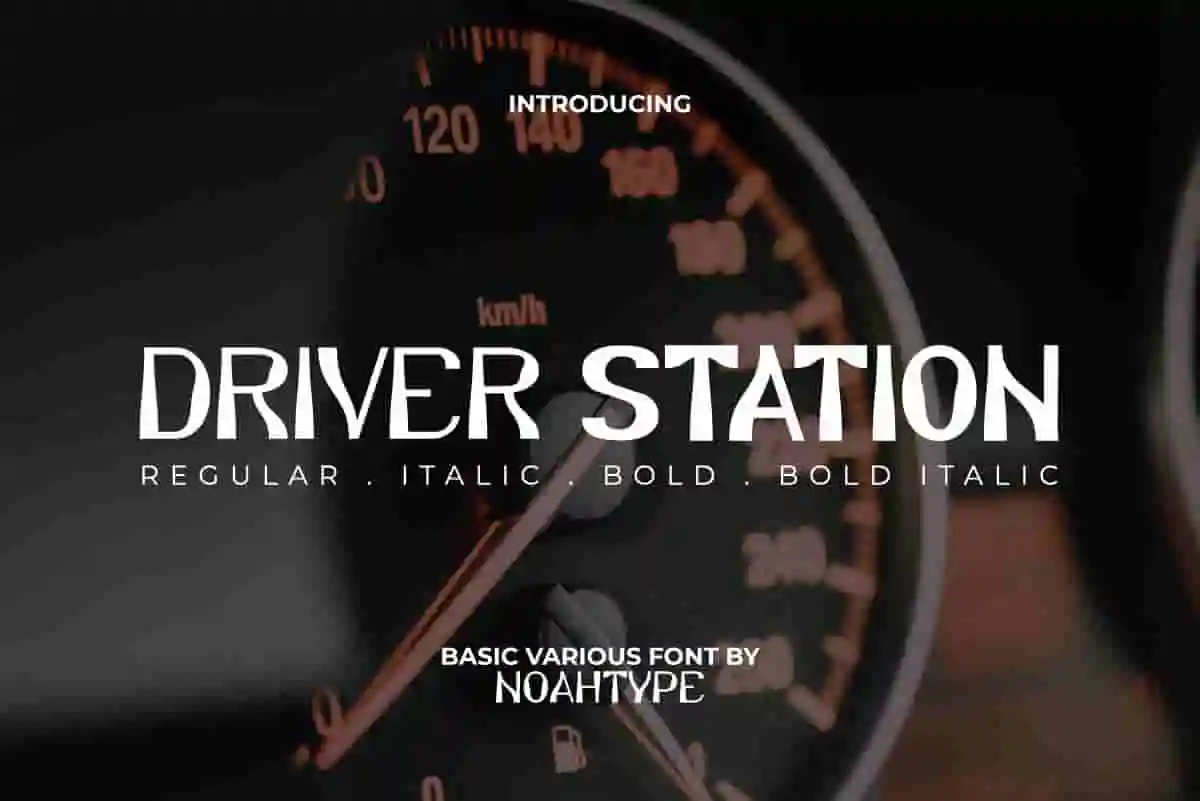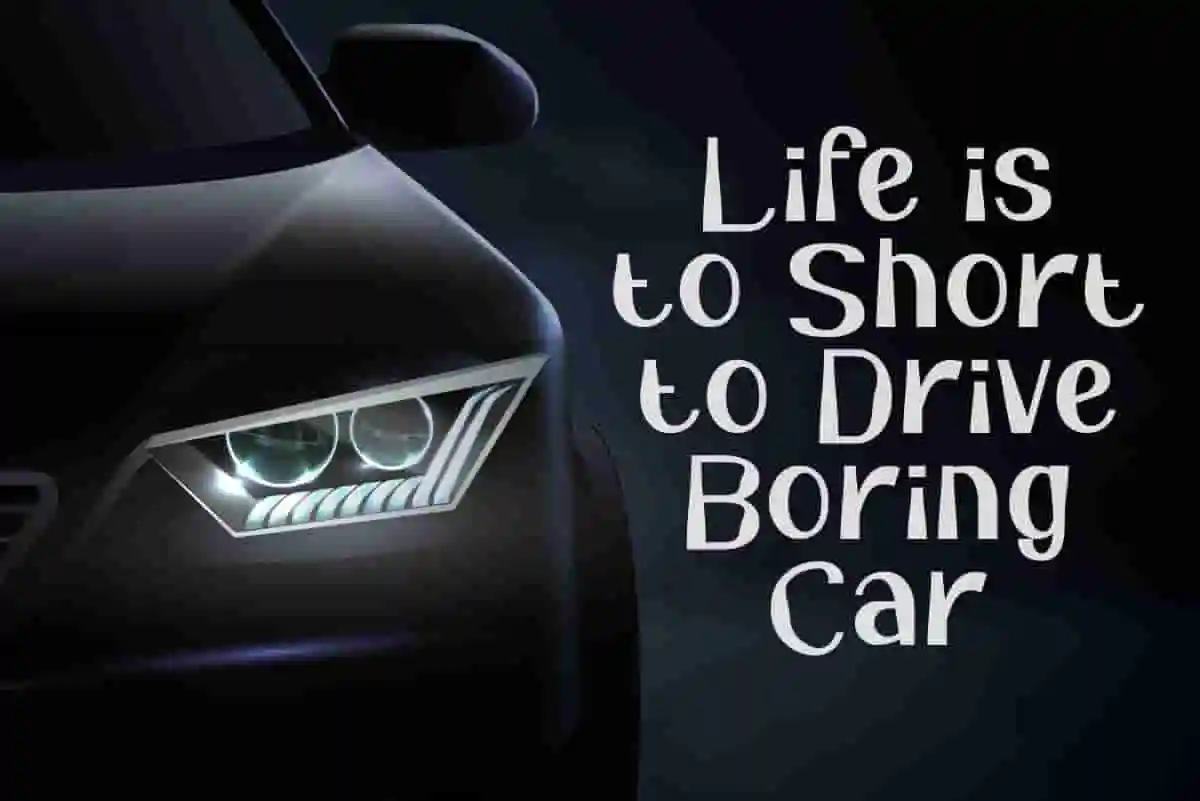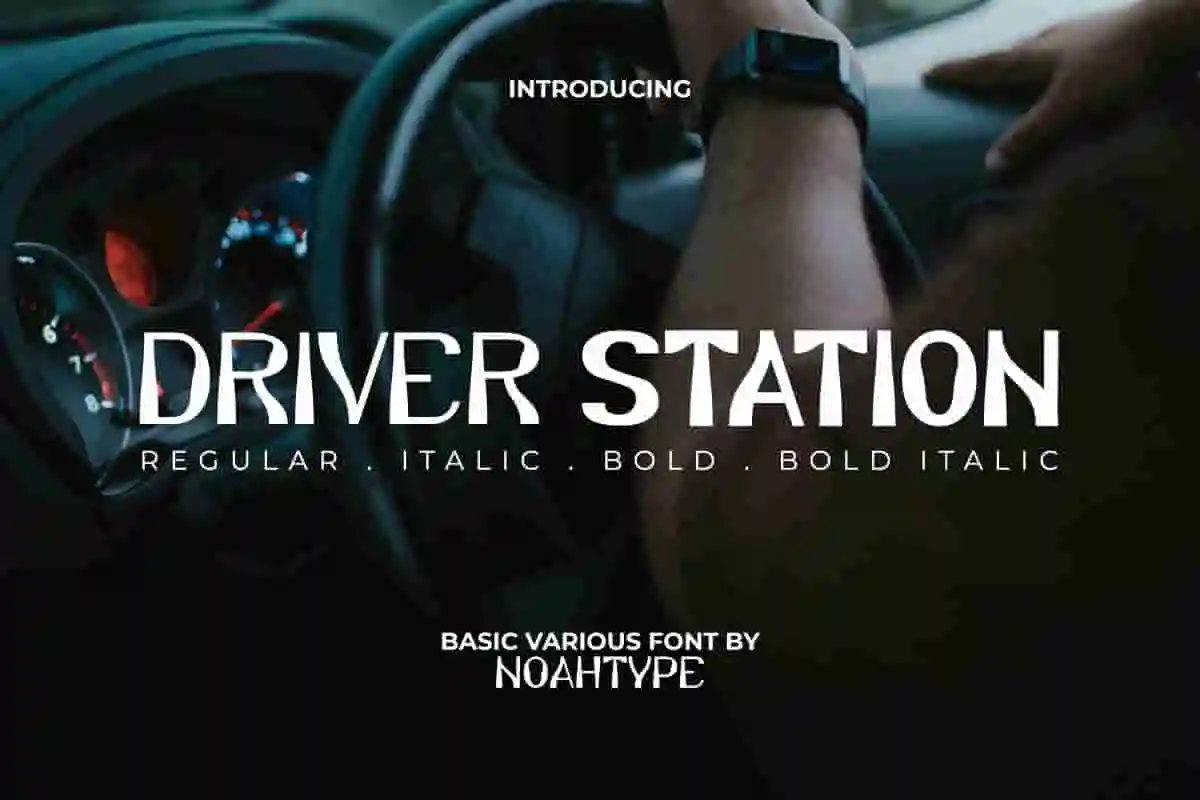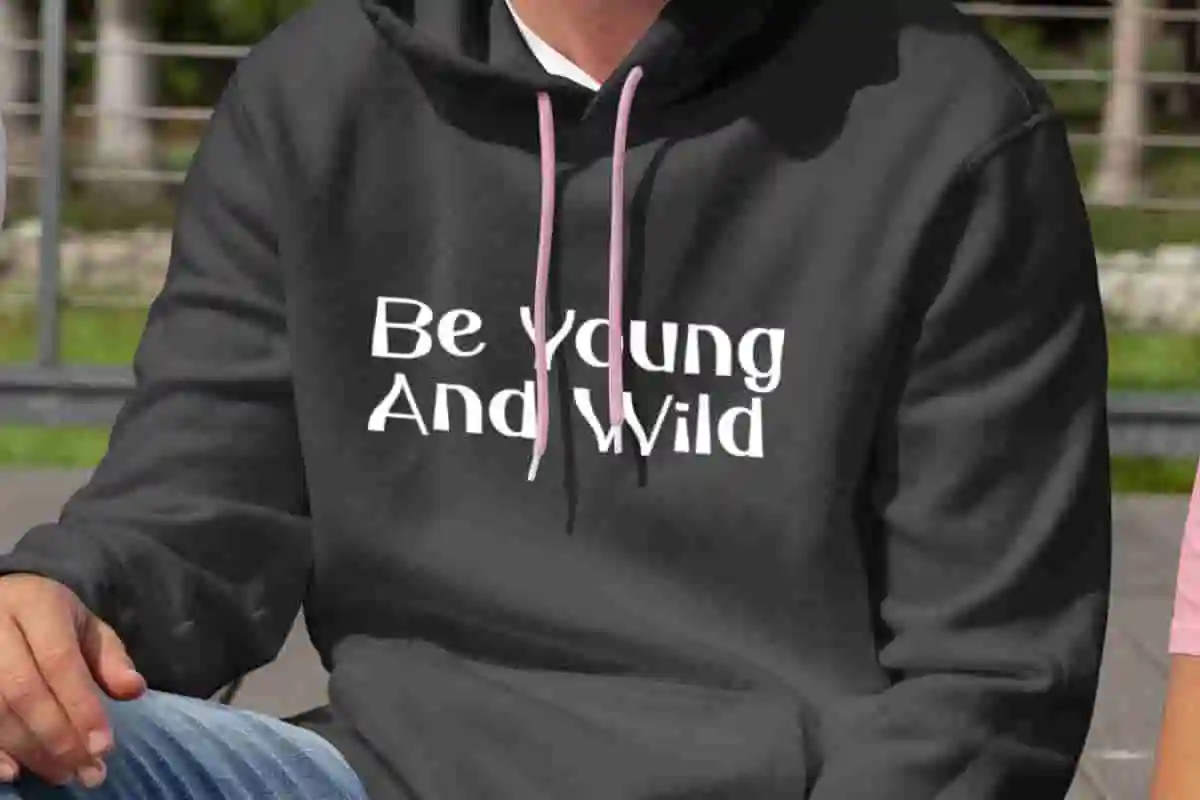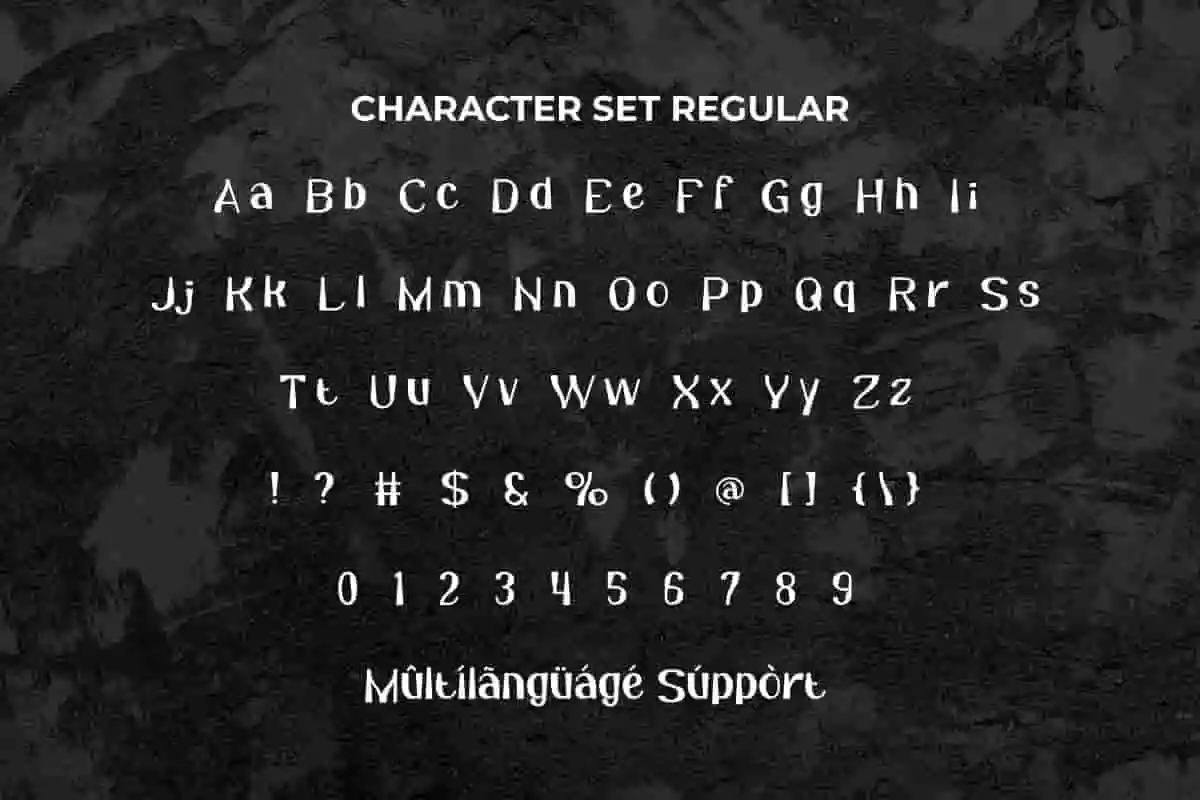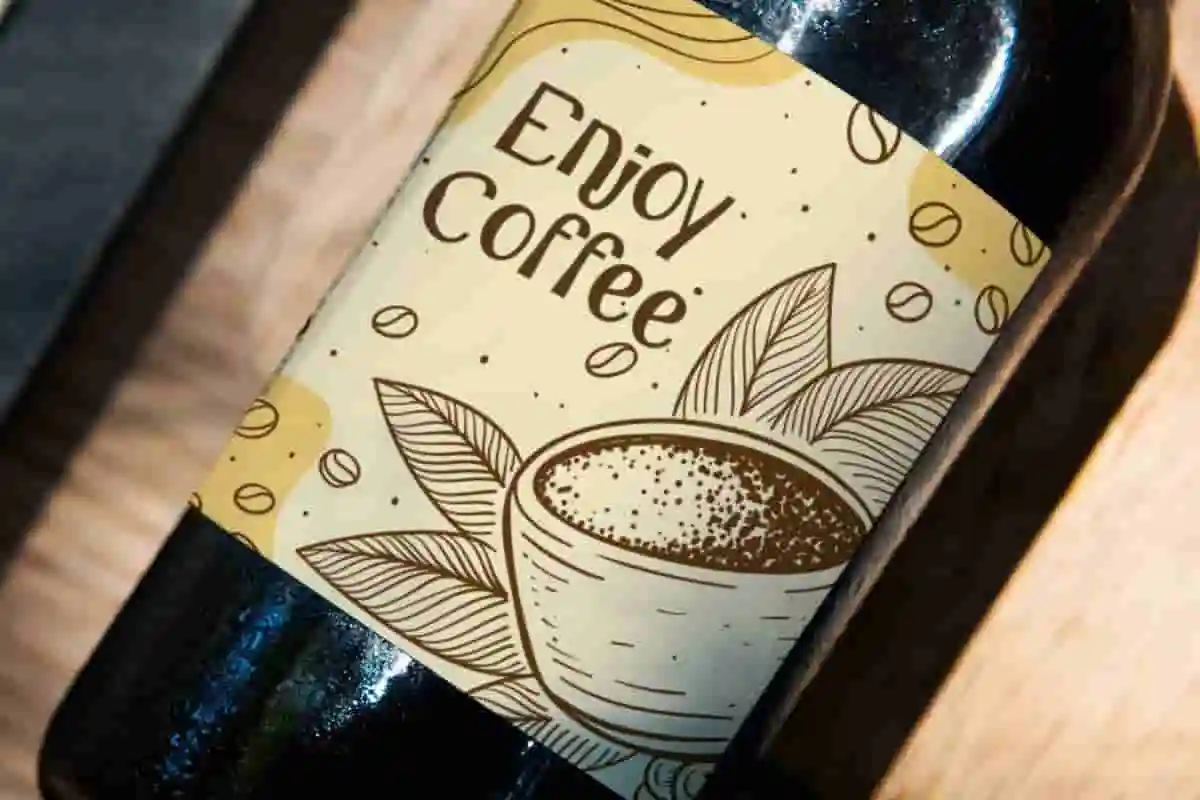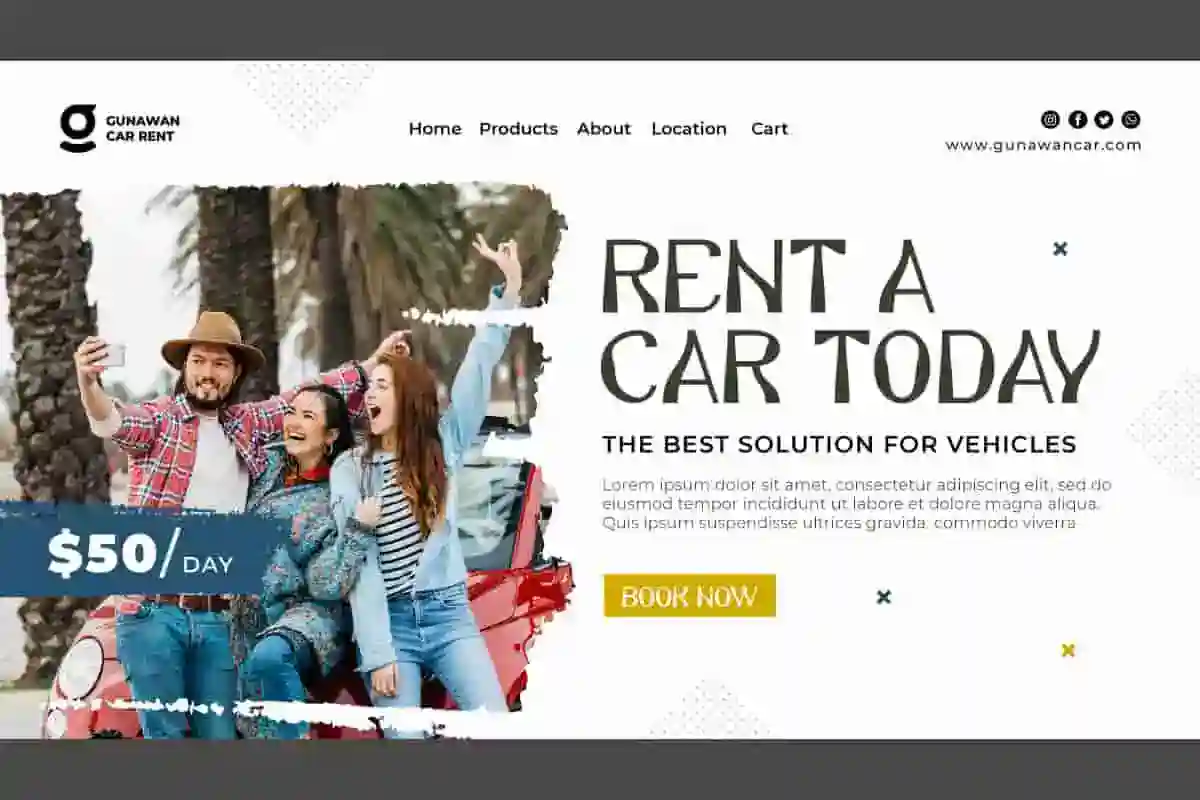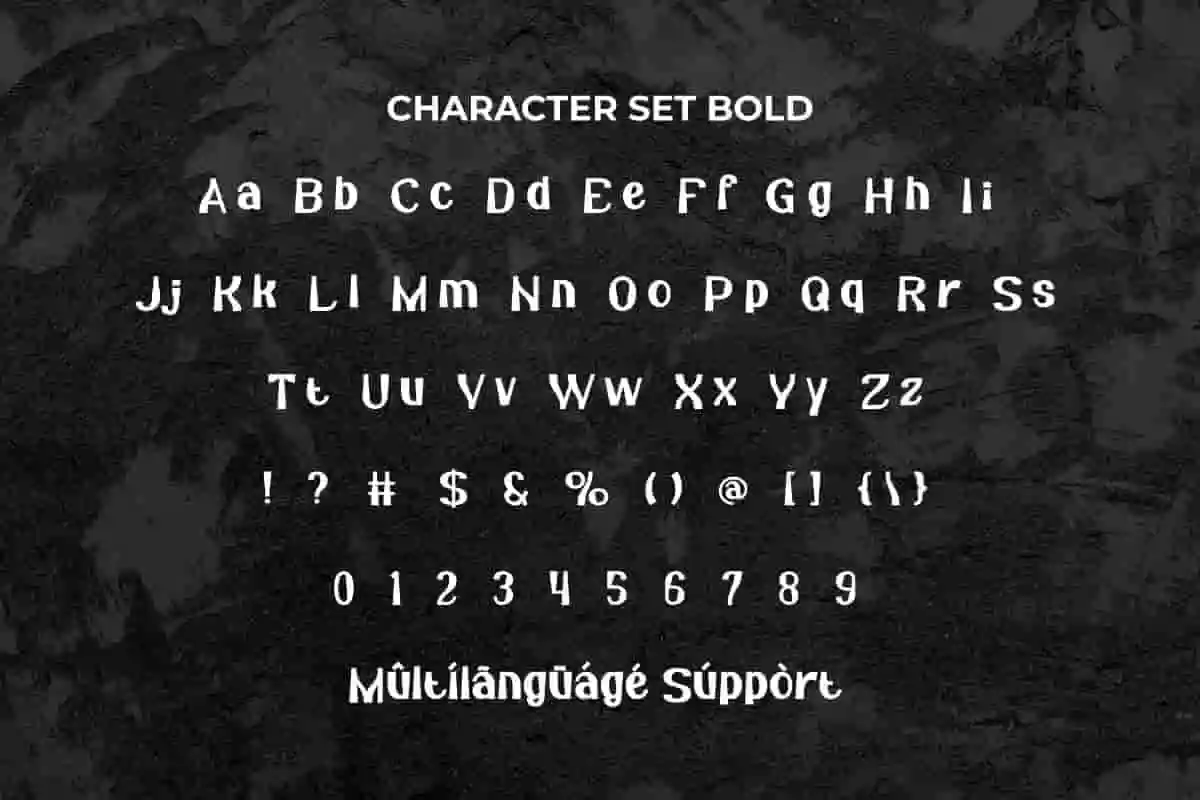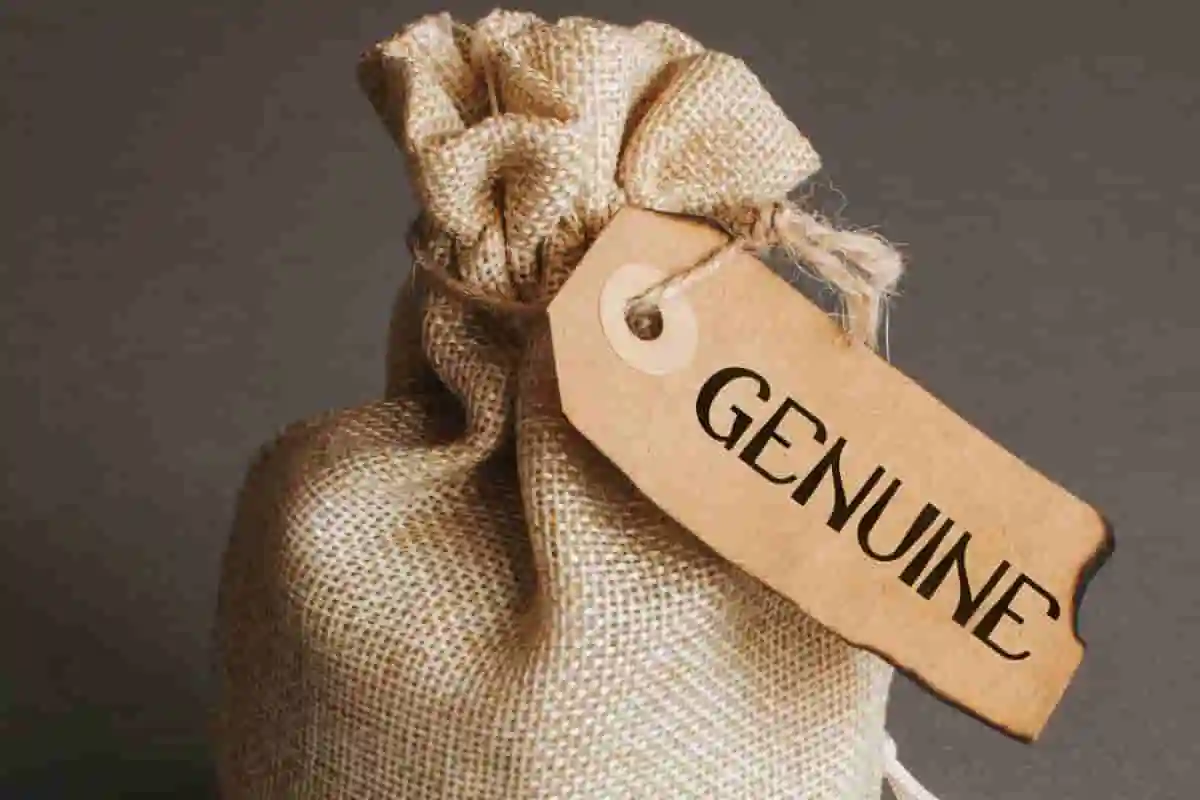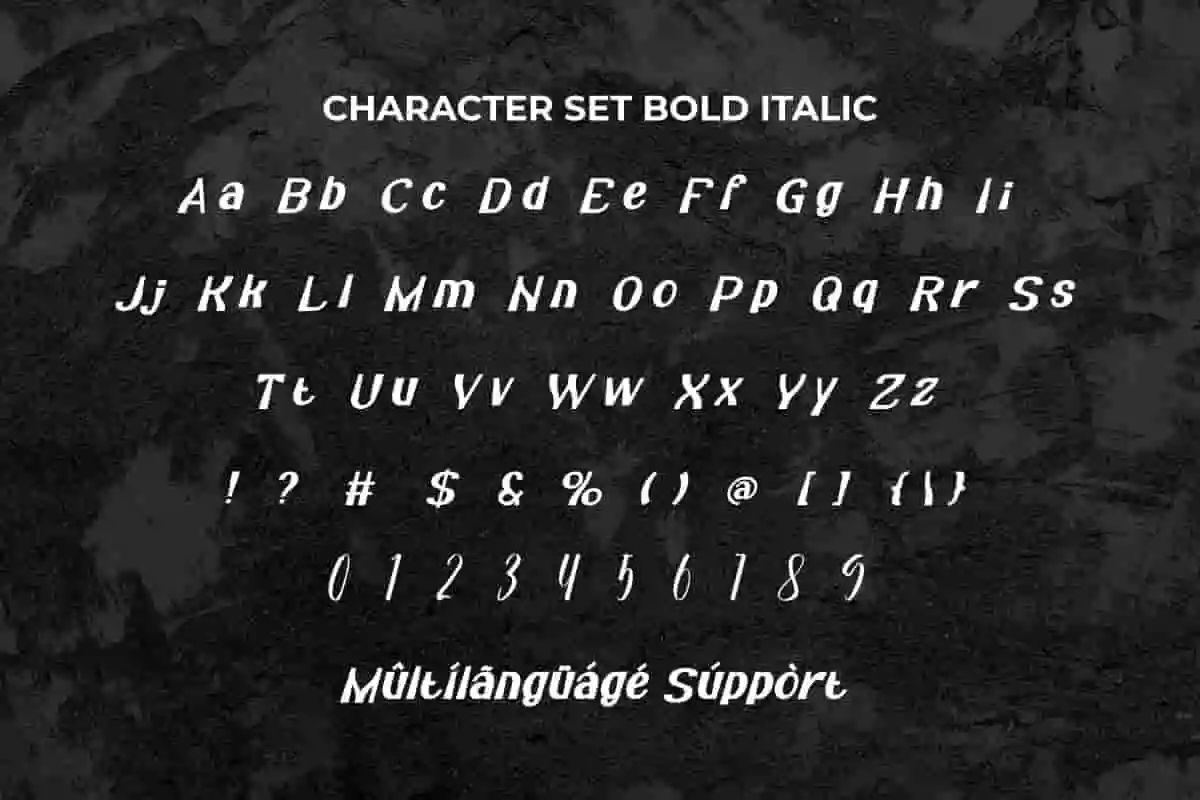
Driver Station Font
Driver Station Font is a basic various display font, created by NoahType. This font has unique shaped that will make your designs more stylish! It would be perfect choice for many industries, such as fashion, accessories, advertisement, café, game, movie, handicrafts, printing, publishing, and more!
Driver Station Font include full set of Uppercase and Lowercase Basic Characters, Numerals and Punctuation. This font has a style that can be used for many purposes that available in four styles: Regular, Italic, Bold, and Bold Italic. Also can be used in any design, such as custom design, greeting card, catalog, label, magazine poster, product packaging, screen printing, signage, stationery, sticker, title, website, etc.